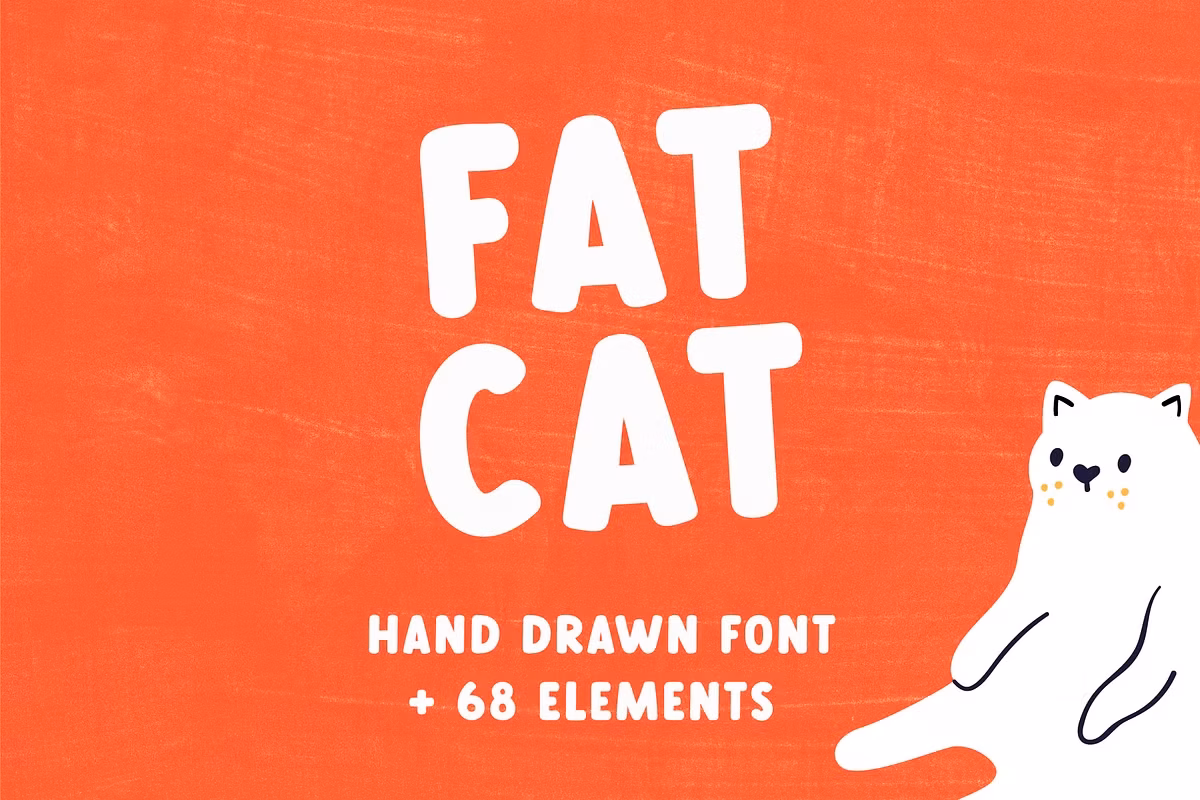
Fat Cat | Hand Drawn Font Free Download is a fun, quirky typeface with a playful hand-drawn aesthetic. With its bold strokes, rounded edges, and a touch of whimsy, this font is perfect for children’s projects, playful branding, illustrations, social media graphics, and casual designs. It brings a personal and light-hearted touch to your work, making it ideal for anything that needs to feel approachable and creative.
Using the Fat Cat | Hand Drawn Font Free Download adds personality and charm to your projects. Whether you're designing for kids, crafting fun posters, or creating illustrations, this font gives your work a hand-crafted, friendly vibe that connects with the audience in a warm, engaging way.